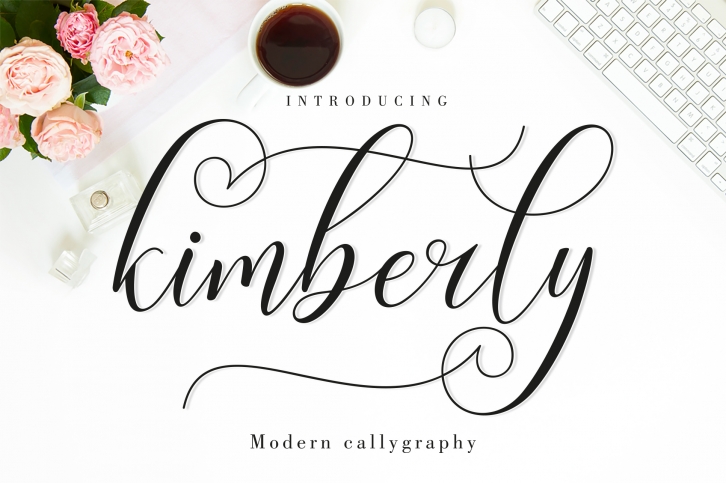
Kimberly is a fluid handwritten font that features more than 560 unique glyphs. You can use this font over and over again and always create a unique designs, which makes it a great font to have in your design arsenal.